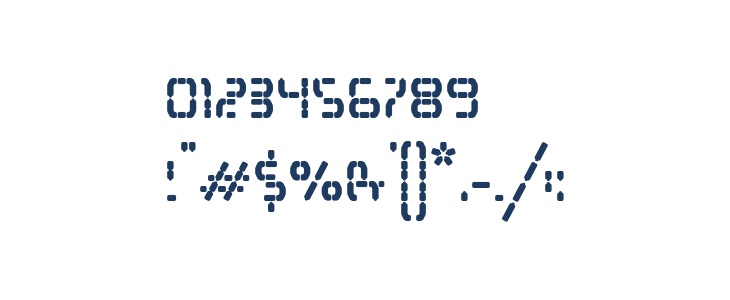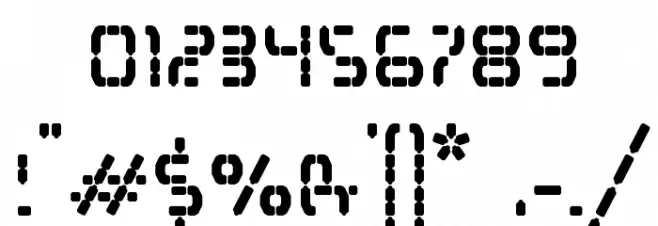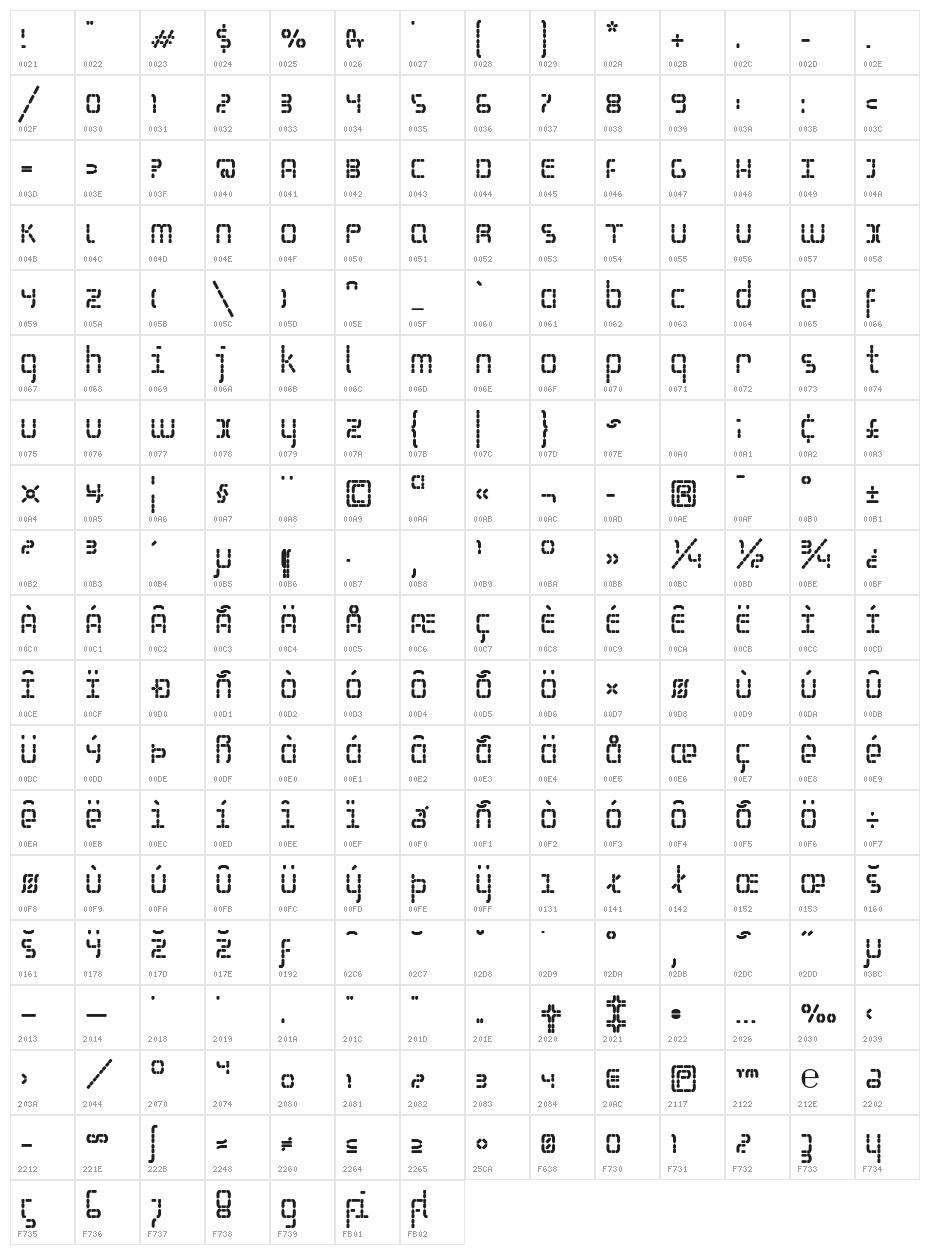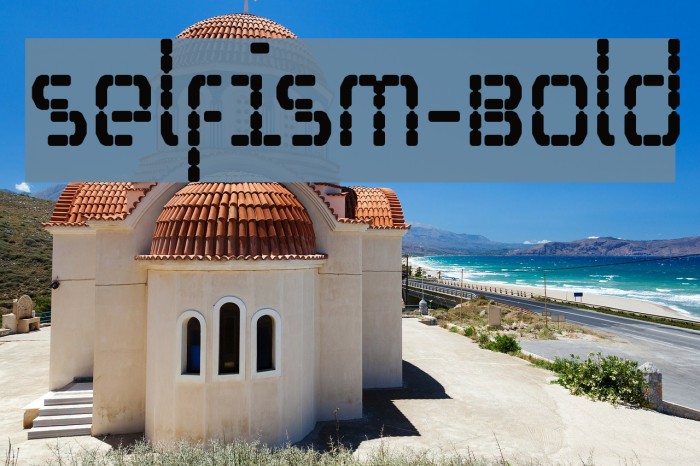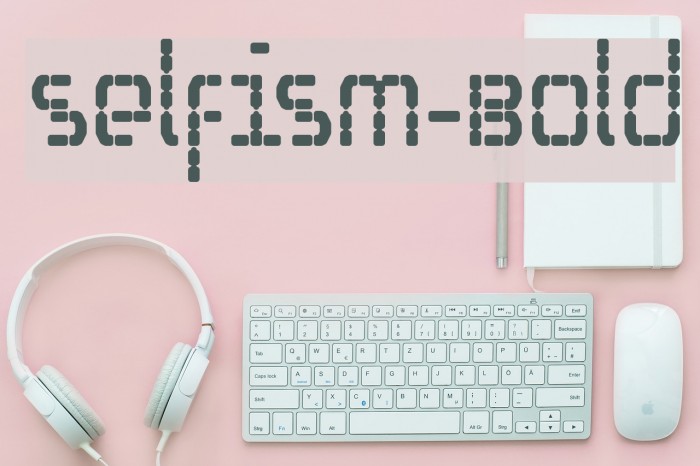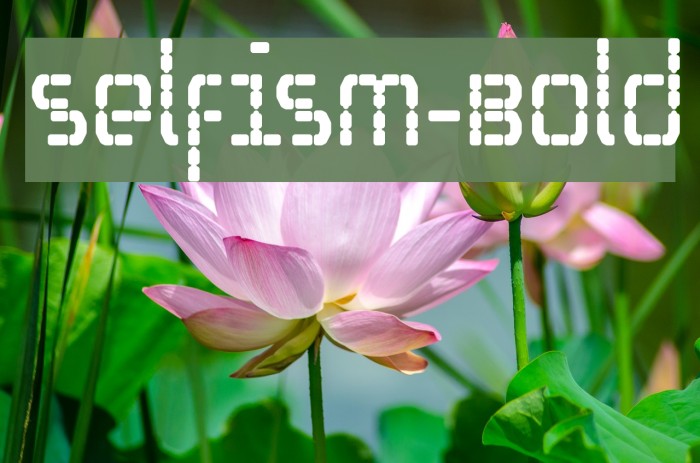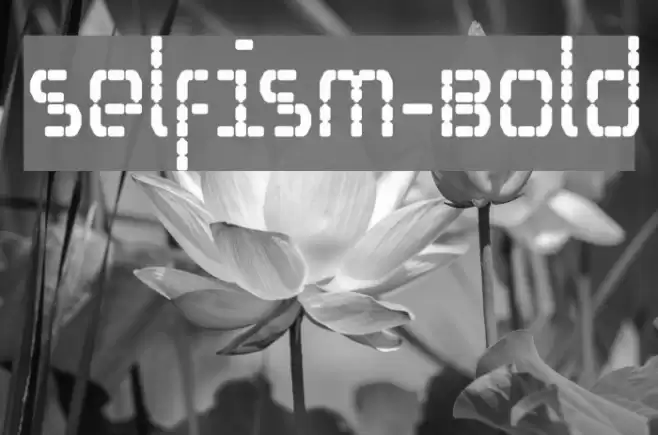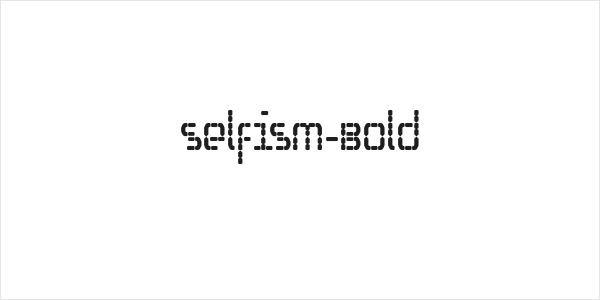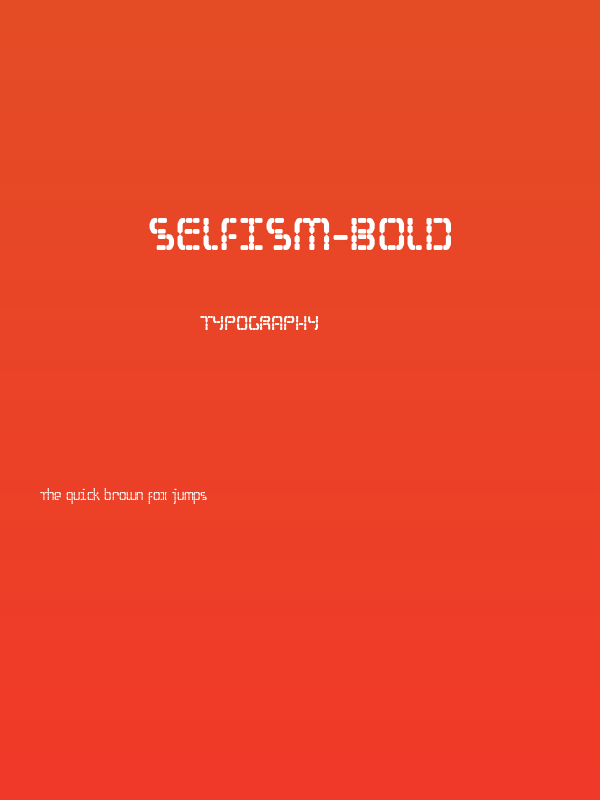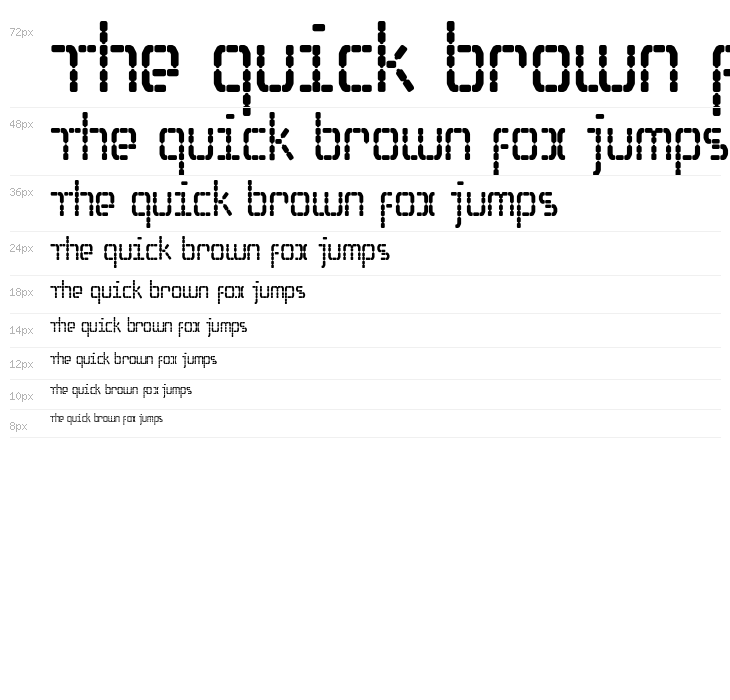
Selfism-Bold Font
Selfism-Bold Description
This font features a unique, modern design with a dotted pattern that forms each character. The geometric structure gives it a futuristic and digital feel, making it stand out for creative projects. Each letter and number is composed of evenly spaced dots, creating a consistent and cohesive look. The font maintains readability while offering a distinct visual appeal, suitable for various design applications. Its bold appearance ensures that it captures attention, making it ideal for headlines and display purposes.
| Proposed Projects | Ideal for digital art, tech-themed designs, posters, and branding projects that require a modern and innovative look. |